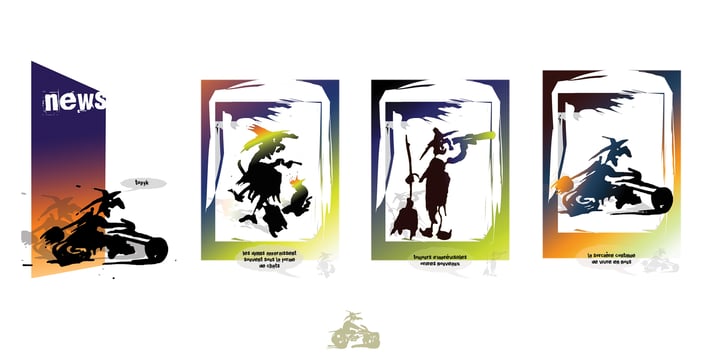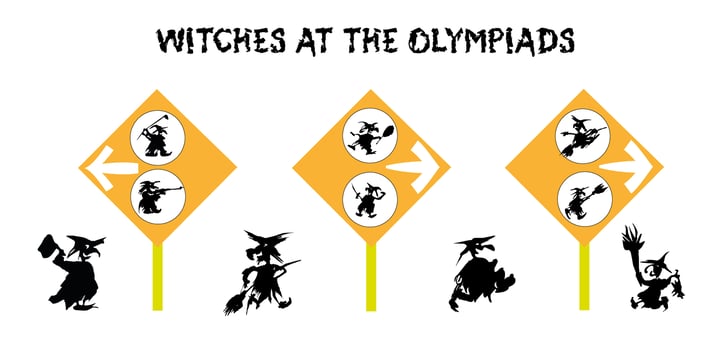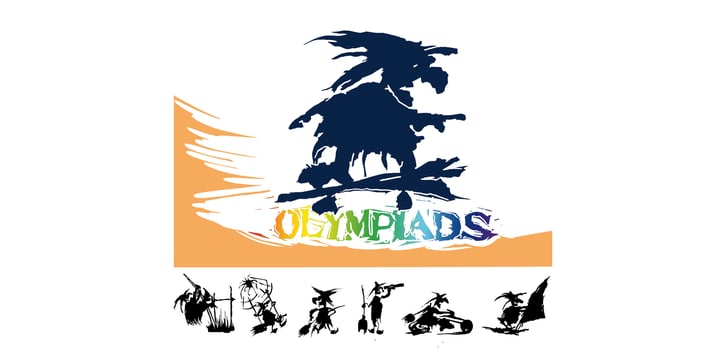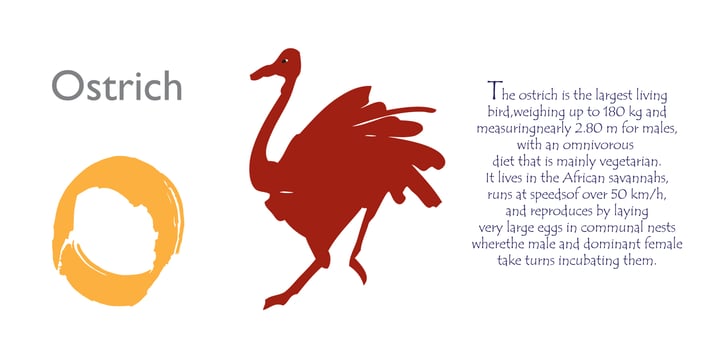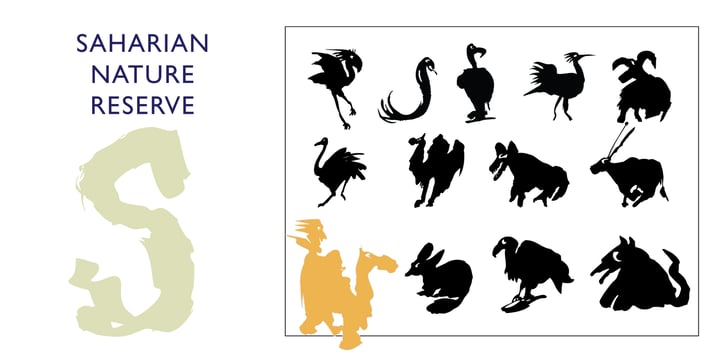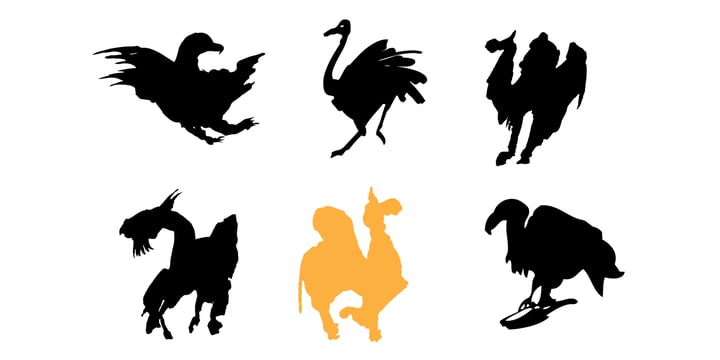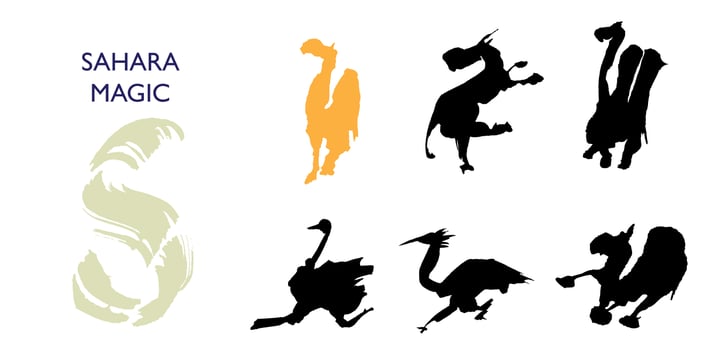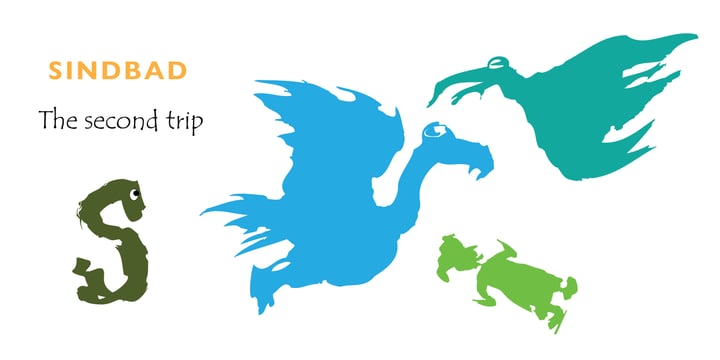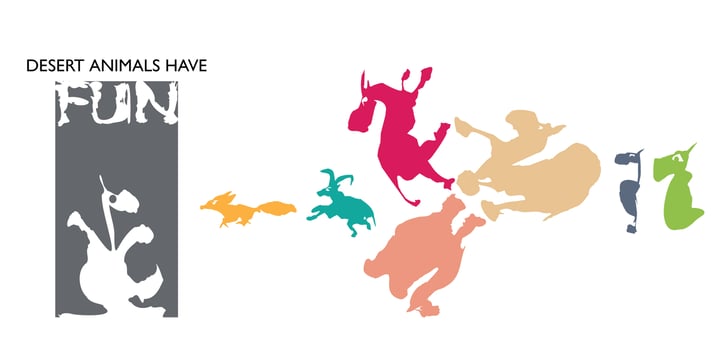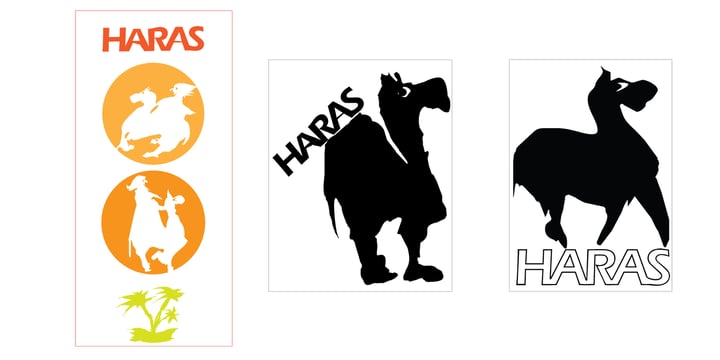
Taouffik S Semmad
The development of my creations spans 35 years, between typography and Art exhibitions. Most of my fonts are unpublished, but not yet available. Creativity took up a lot of my time. Working as an artist helped me develop my creativity. One of my exhibitions, entitled BEFORE BABEL, features the different alphabets that exist around the world. I first had to memorize them and then write and create, in a spontaneous, gestural manner, a universal calligraphy. This does not necessarily mean universal thinking, because each language has its own way of thinking; it is a utopia, in a way.
The alphabets and pictograms are hand-drawn using different brushes, bamboo sticks, and Chinese ink. The computer is then used to transform the alphabet and pictograms into typography.
My alphabets are a form of expressionism, an artistic genre that expresses itself through the creation of shapes and lines to convey emotions and ideas visually. They are created using ink projections, which are both deliberate and drawn from the unconscious. There is a lot of freedom and also rigor. World events, as well as the different cultures that accompany them, have a great influence on my work.
I have already published two fonts with ITC: a typographic font and a pictogram font. I have also published a font with 2REBELS.
I studied Graphic Design, Illustration, Typography, Painting, and Engraving in ALGERIA, the USSR, BELGIUM, and CANADA.